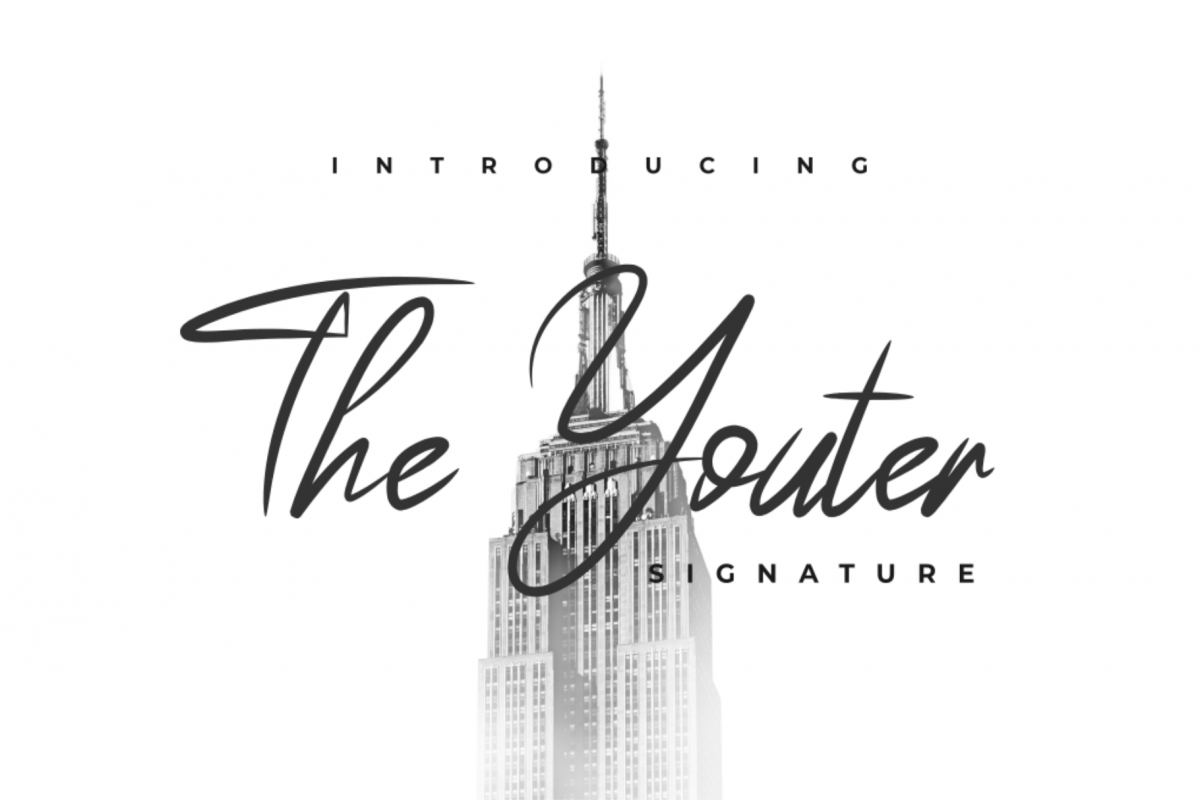
IntroducingIn my daily life, I'm always writing for everything with Latin inscription. So I'm thought to make a font with my own handwritten style. The Youther made by natural stroke line and combinate with my own written style. This font always elegant and Cathy for all your project design.Features and benefit
- Uppercase and lowercase
- Numeral and punctuations
- ligature set